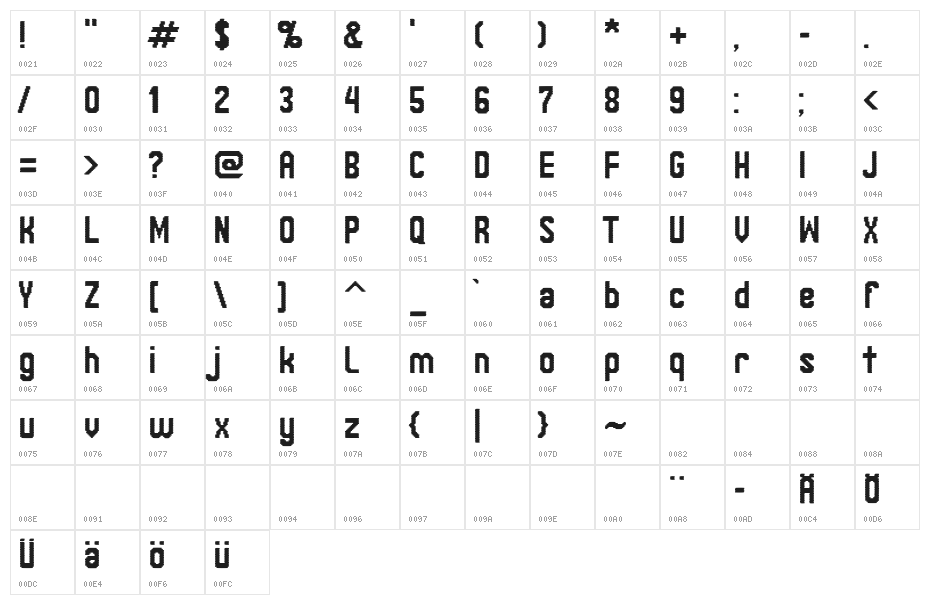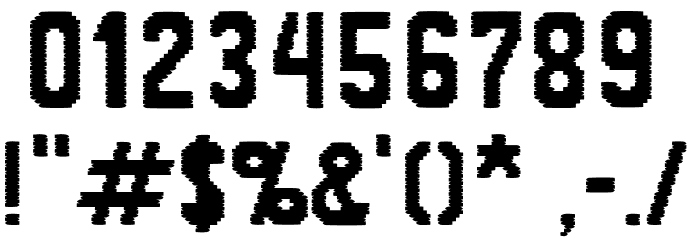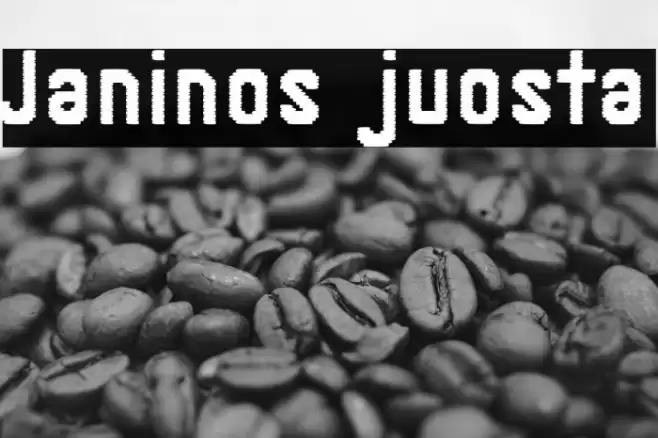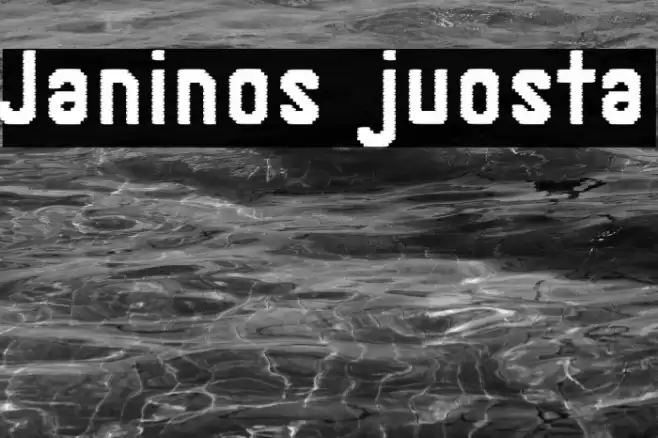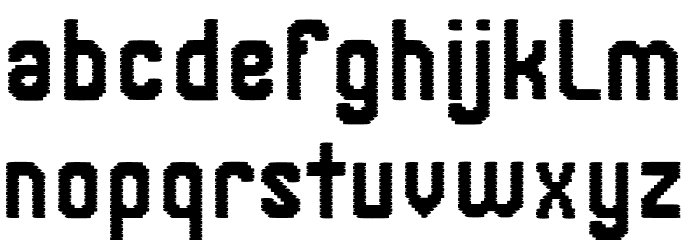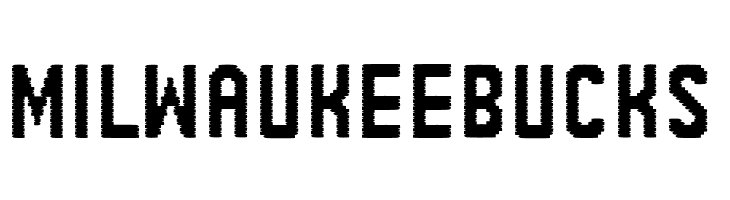
Janinos juosta Font
Janinos juosta Description
This font features a bold, pixelated style reminiscent of early digital displays or retro video games. The characters are uniformly thick, with a blocky appearance that gives a sense of solidity and strength. The uppercase and lowercase letters maintain a consistent height, contributing to a cohesive look. The numerals and special characters follow the same design principles, ensuring uniformity across all glyphs. This font's distinct style makes it stand out, ideal for projects that require a vintage or tech-inspired aesthetic.
| Overall Style | Vintage |
| Use Case | Logos, Headlines, Posters |
| Proposed Projects | Ideal for retro video game designs, tech-themed posters, or digital art projects. |